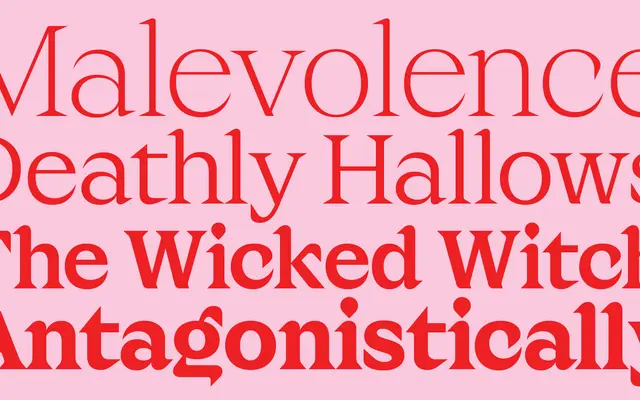
Maligna
A low-contrast contemporary serif by Valerio Monopoli, available in six weights with italics and variable fonts, distinguished by its signature truncated lowercase 'g' and floral-thorn serif details.
Designed by Rome-based Valerio Monopoli, the family spans six weights from Thin to Bold, each with a matching italic, plus variable upright and italic fonts. Low contrast and a 829-glyph character set covering 207 languages make it workable at small text sizes, while sharp, dimensionless vertices keep it effective at display scale. The signature uppercase 'R', the truncated lowercase 'g' that drops below the baseline, and the pointed serif details give it a recognisable character distinct from conventional text serifs.
A low-contrast serif with sharp, dimensionless vertices and rounded serif interlocks, designed to function across both display and text settings. The foundry positions it as a contemporary serif with display personality and text readability.